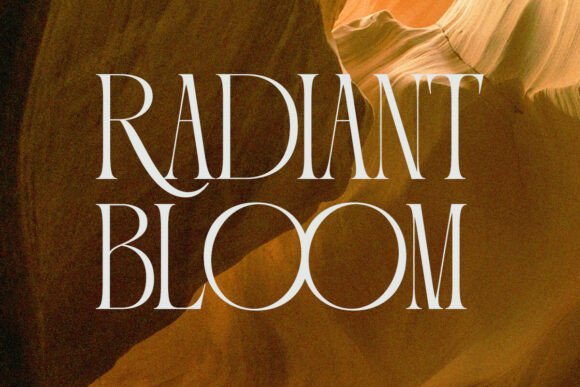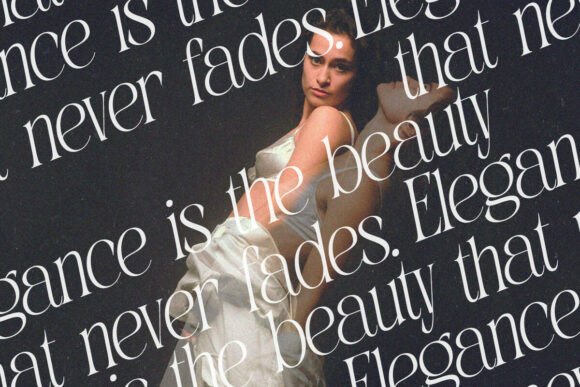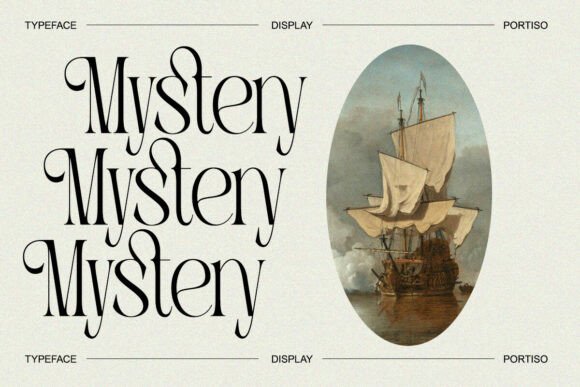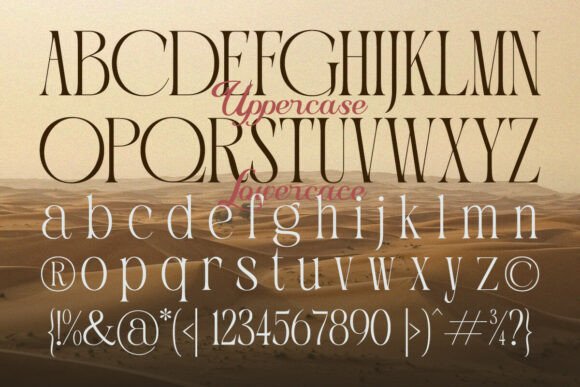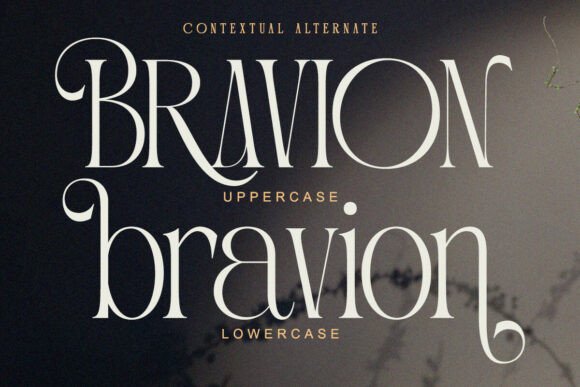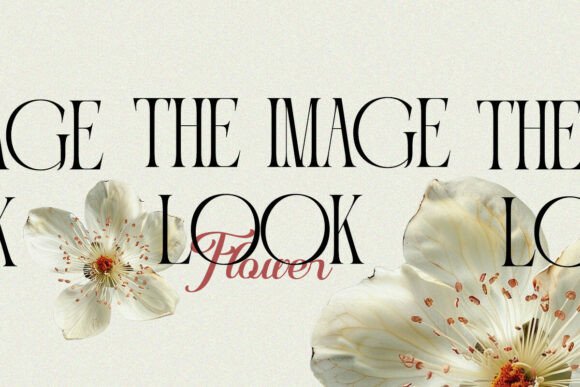
Introduction to Portiso Font Font
Fonts play a crucial role in design, and the Portiso Font font is a typeface that brings both character and versatility to any project. Whether you’re working on a branding project, a website, or a print design, the Portiso Font font offers a unique style that can elevate your work.
Portiso – Modern Luxury Serif Font for Elegant Design Excellence Portiso is a modern luxury serif typeface designed to evoke prestige, class, and timeless sophistication.
With its elegant letterforms, high contrast strokes, and finely crafted alternates, Portiso is your go-to choice for creating designs that demand attention and exude premium quality Whether used in logos, branding materials, editorial layouts, or product packaging, Portiso elevates your message with a graceful yet powerful presence.
Key Features of Portiso Font Font
Why Choose Portiso Font Font?
The Portiso Font font is more than just a typeface – it’s a design tool that helps you communicate your message with style and clarity. Its unique character set and versatile design make it suitable for a wide range of applications, from elegant invitations to bold headlines.
With its carefully crafted letterforms and balanced proportions, the Portiso Font font ensures readability and visual appeal across all mediums.
What makes Portiso Font font special?
The Portiso Font font stands out with its unique design, exceptional readability, and versatility across various design applications.